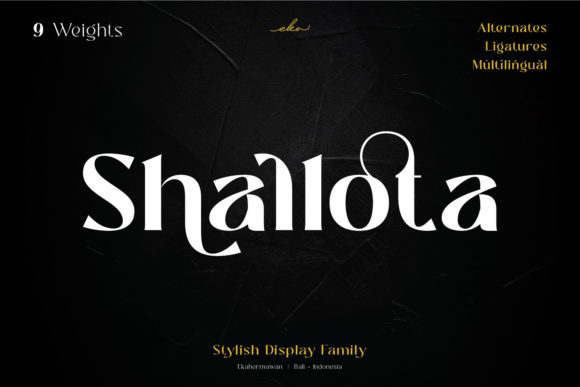
Step into the realm of elegance and sophistication with Shallota, the display font that exudes a smooth vibe, ready to transform your designs into captivating masterpieces. This font is the perfect companion for fashion branding and editorial designs, adding a touch of boldness and style to your creations.
With Shallota, you'll find yourself immersed in a world of possibilities. Its smooth curves and sleek lines lend an air of sophistication to any project, making it the perfect choice for logos, branding, posters, and marketing materials. Its bold presence demands attention, ensuring that your message stands out from the crowd.
But Shallota is more than just a pretty face. It's also incredibly versatile, easily adapting to a wide range of design styles. Whether you're looking for a font that exudes elegance, modernity, or a touch of playfulness, Shallota delivers. Its PUA encoding makes it a breeze to access all of the glyphs and swashes, giving you the freedom to explore your creativity without limits.